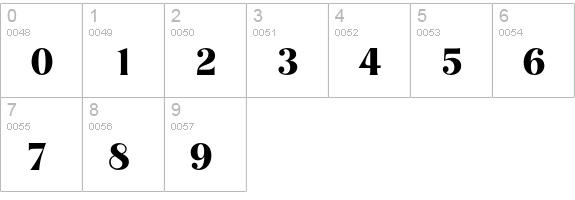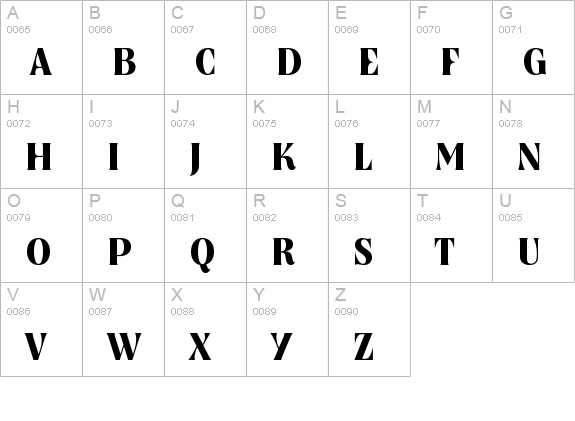
NashvilleEF-DemiBold is a sub-bold, structured variant in the NashvilleEF typeface family \xE2\x80\x94 well suited to sub-headlines and emphasised passages.
NashvilleEF-DemiBold font is a modern and stylish typeface that exudes elegance and sophistication. With its bold and eye-catching design, this font is perfect for making a statement in any project. The sleek lines and robust appearance of NashvilleEF-DemiBold make it ideal for headlines, titles, and branding materials. What sets NashvilleEF-DemiBold font apart is that it is available for free download at FontsMarket.com. This means that you can easily access this high-quality font without having to spend a dime. Whether you're a designer looking to add a touch of sophistication to your work or a business owner in need of a standout font for your branding, NashvilleEF-DemiBold is the perfect choice. Download it for free today and elevate your designs to the next level.